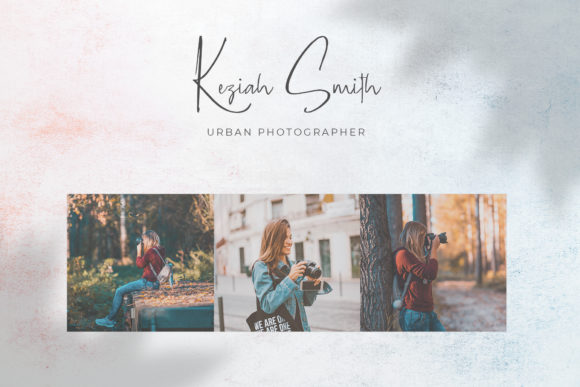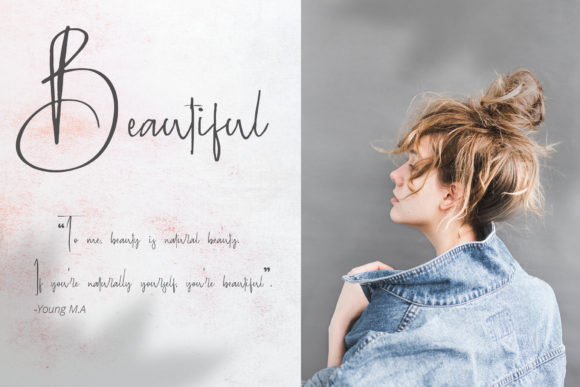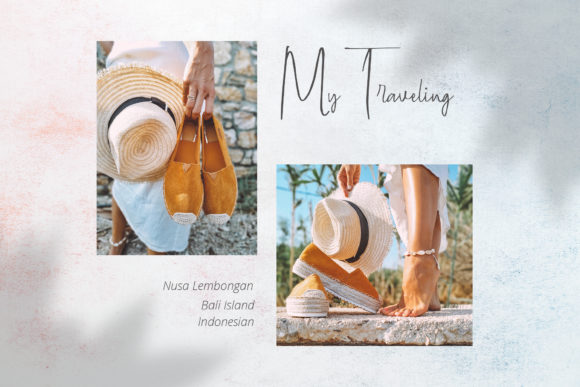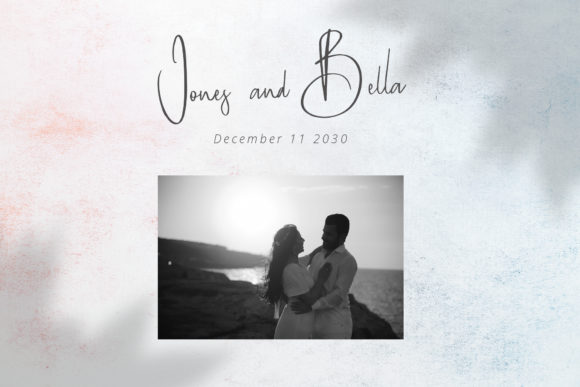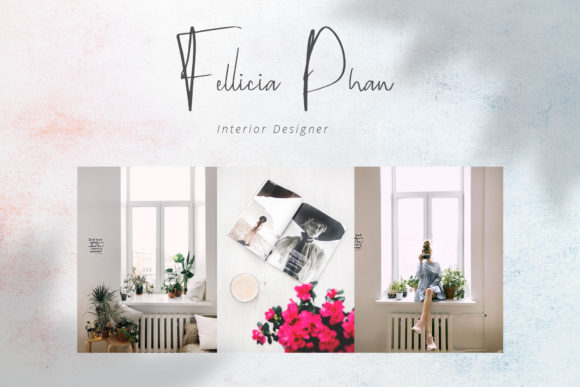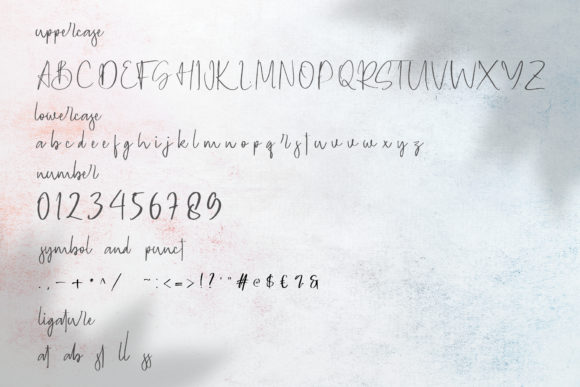
Introducing Geovanice Font: Elevate Your Crafting Projects with Elegance
Are you a designer or crafter looking for a font that can add a touch of sophistication and whimsy to your projects? Look no further than Geovanice Font. This casual yet stunning script font is designed to update a wide range of crafting products, from DIY tutorials and planners to stationery and branding materials.
What Makes Geovanice Font Special?
Geovanice Font is a unique and versatile script font that boasts a distinctive charm. Its elegant, cursive letters are perfect for adding a personal touch to your crafting projects. Whether you’re creating handmade cards, crafting planners, or designing social media graphics, Geovanice Font is sure to make your work stand out.
Key Features of Geovanice Font
- Casual yet elegant: Geovanice Font strikes the perfect balance between casual and sophisticated, making it ideal for a wide range of crafting projects.
- Script style: The font’s script style adds a touch of whimsy and personality to your designs, making them more engaging and eye-catching.
- Highly versatile: Geovanice Font can be used for a variety of crafting projects, from DIY tutorials and planners to stationery and branding materials.
- Easily readable: Despite its elegant style, Geovanice Font is highly readable, making it perfect for use in both digital and print materials.
How to Use Geovanice Font in Your Crafting Projects
Geovanice Font is incredibly easy to use and can be incorporated into your crafting projects in a variety of ways. Here are a few ideas to get you started:
- DIY tutorials: Use Geovanice Font to add a personal touch to your DIY tutorials, such as knitting patterns, sewing projects, or home decor instructions.
- Planners and organizers: Add a touch of elegance to your planners and organizers with Geovanice Font, perfect for bullet journaling or creating custom planners.
- Stationery and greeting cards: Use Geovanice Font to create beautiful, handmade stationery and greeting cards that are sure to impress.
- Branding materials: Incorporate Geovanice Font into your branding materials, such as logos, business cards, or social media graphics, to add a touch of sophistication and personality.
Tips for Getting the Most Out of Geovanice Font
To get the most out of Geovanice Font, here are a few tips to keep in mind:
- Experiment with different colors: Geovanice Font looks great in a variety of colors, so don’t be afraid to experiment and find the perfect hue for your project.
- Mix and match with other fonts: Combine Geovanice Font with other fonts to create a unique and visually appealing design.
- Use it consistently: Use Geovanice Font consistently throughout your project to create a cohesive and professional look.
Geovanice Font is a stunning script font that is sure to elevate your crafting projects to the next level. With its elegant, cursive letters and highly versatile design, it’s perfect for a wide range of crafting applications. Whether you’re a designer or crafter, Geovanice Font is a must-have font that will add a touch of sophistication and whimsy to your work.